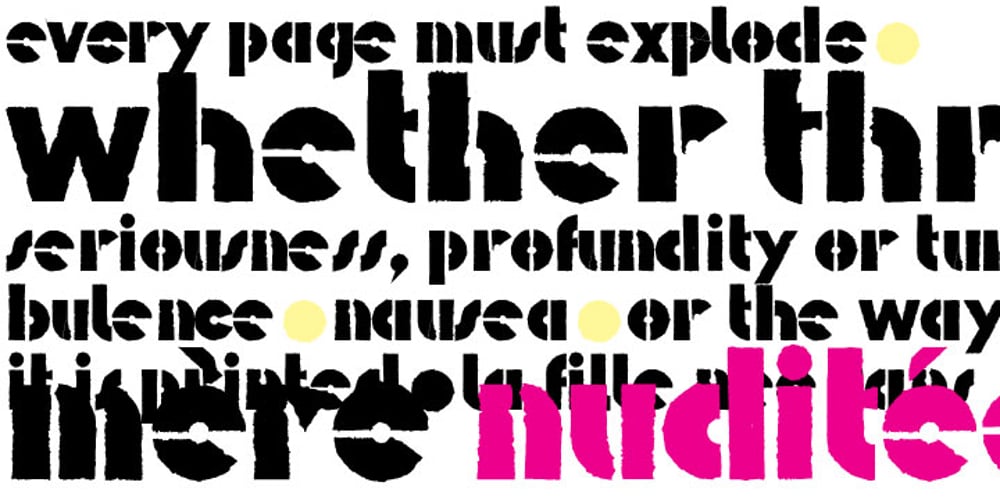
DF Scheur Font Family was designed by Ko Sliggers and published by Dutchfonts. DF Scheur contains 4 styles and family package options. DF Scheur is a typeface teared together in a time in which a lot is teared apart. In fact it is also a broken dream typeface because it was meant to be launched as an OpenType miracle. Now you will get a font package with 4 variations because the OpenType features refused to work thanks to the far too complex contours… so it is a help-yourself solution.